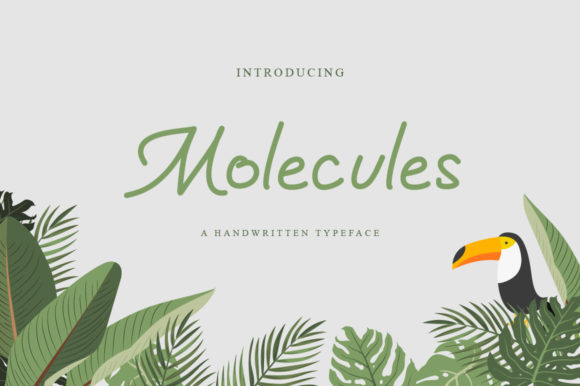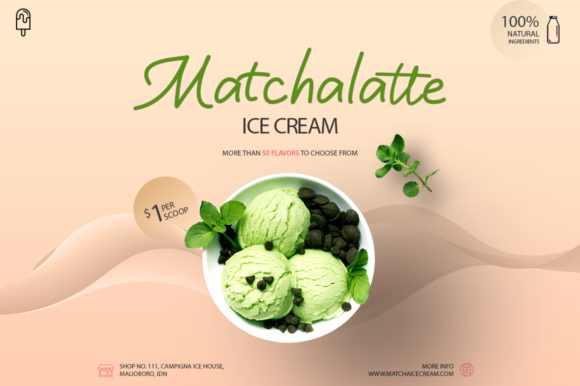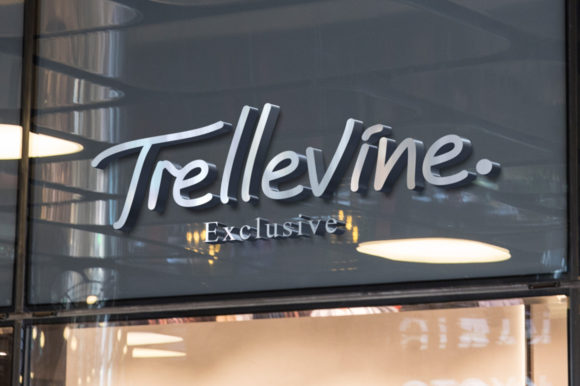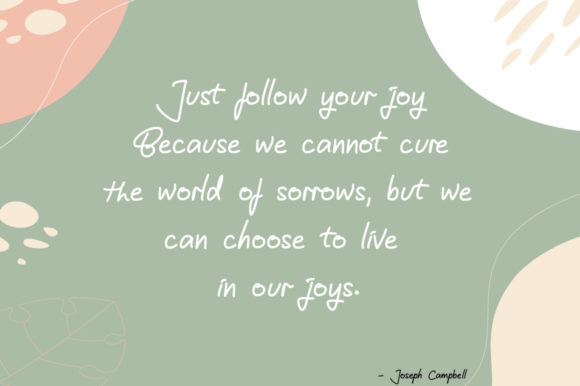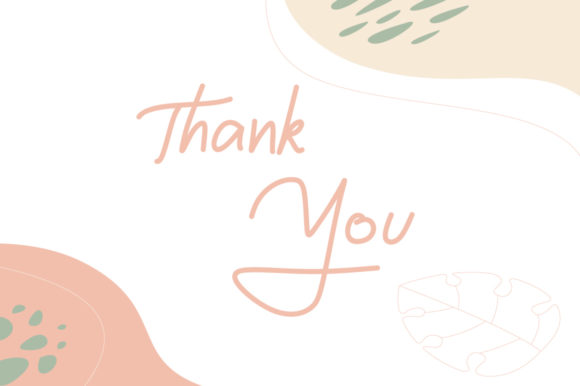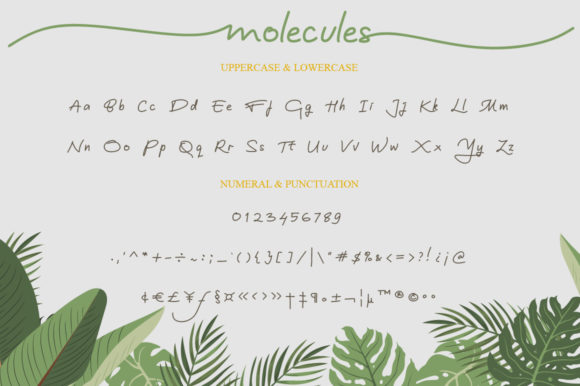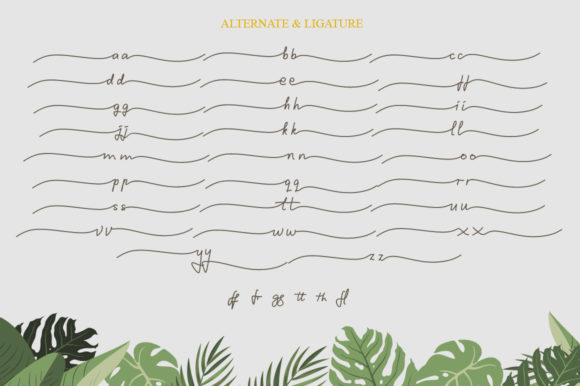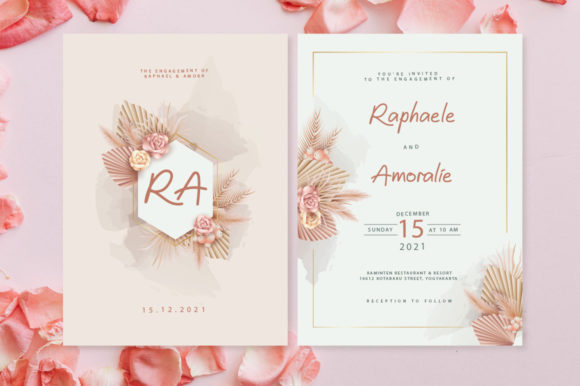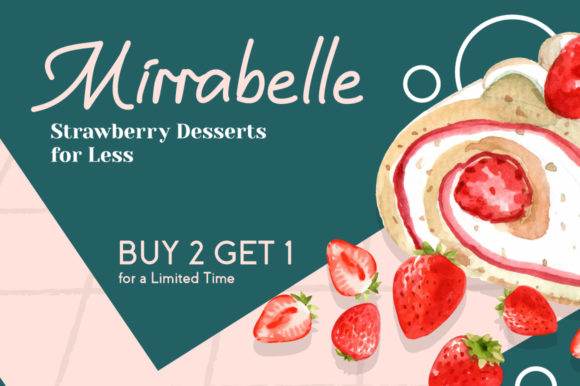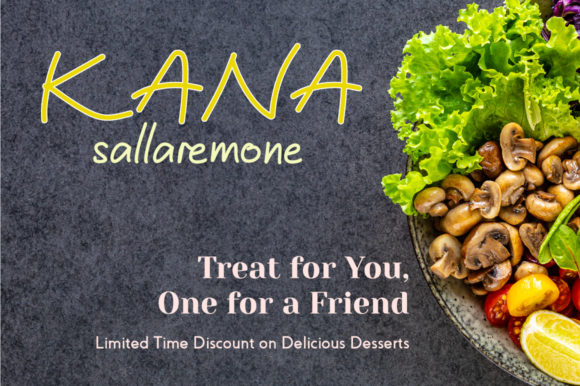
Molecules Font
Molecules is a refined and sophisticated script font that exudes elegance and grace. Its delicate strokes and balanced letterforms give it a timeless and classy appearance, making it the perfect choice for adding a touch of sophistication to your projects.
The font’s versatility allows it to shine in a wide range of designs. Whether you’re working on wedding invitations, branding materials, logos, packaging, social media graphics, or any other project that requires an elevated and stylish touch, Molecules will enhance the beauty and impact of your work.
With its PUA encoding, accessing all the glyphs and swashes of Molecules is effortless, giving you the freedom to customize and personalize your designs with ease. This feature allows you to add decorative elements, flourishes, and unique touches to make your creations stand out.
The charm of Molecules lies in its simplicity and understated beauty. Its clean and graceful letterforms create a harmonious flow, making it easy to read and visually pleasing. Whether used for headlines, subheadings, or body text, Molecules adds a touch of sophistication to any composition.
Its refined and balanced design also makes Molecules suitable for both digital and print applications. Whether displayed on screens or in printed materials, the font maintains its elegance and clarity, ensuring a consistent and polished look across various mediums.
Molecules can be used in a variety of contexts and themes. Its delicate appearance makes it ideal for romantic and luxurious designs, while its versatile nature allows it to adapt to other themes such as beauty, fashion, lifestyle, and more.
In summary, Molecules is an elegant script font with a delicate and classy look that enhances the beauty of your projects. Its PUA encoding grants easy access to its various glyphs and swashes, enabling you to customize your designs effortlessly. Embrace the sophistication of Molecules and elevate your creations with its timeless and refined charm.